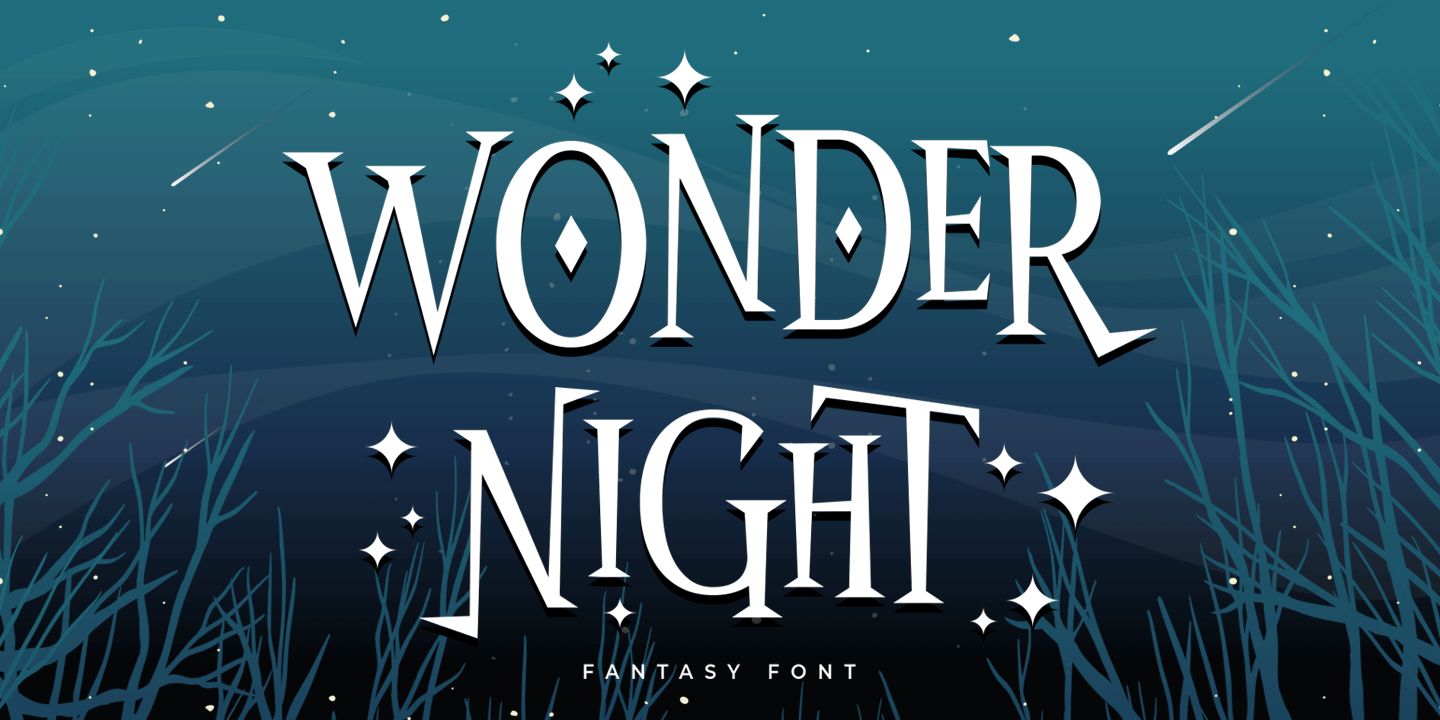
Wonder Night Font is perfect for nightclub entertainment branding, evening event promotions, stargazing tour marketing, nighttime photography studios, midnight festival advertising, and enchanting after-dark campaigns. Its mystical character makes it ideal for nightlife venues, evening entertainment companies, astronomy organizations, nocturnal tour operators, and any application requiring magical typography that conveys nighttime wonder, evening enchantment, and the mysterious beauty of starlit nights and after-dark adventures.
Wonder Night Font is exciting because it captures the mystical enchantment and starlit wonder of nighttime through luminously crafted letterforms that shimmer with the same magical energy as moonbeams and starlight. Its nocturnal proportions and night-inspired details evoke the peaceful mystery of quiet evening hours and the awe-inspiring beauty of clear night skies, making it perfect for brands creating memorable nighttime experiences and celebrating the magic of darkness. The font's night character transforms communications into expressions of nocturnal wonder.
Wonder Night Font family includes night-inspired weight variations typically featuring Light, Regular, Medium, and Bold options with mystical styling that maintains nighttime authenticity. The family often incorporates celestial symbols, starlight ornaments, and evening elements designed for nocturnal applications, providing designers with comprehensive tools for creating authentic, night-focused typographic compositions.